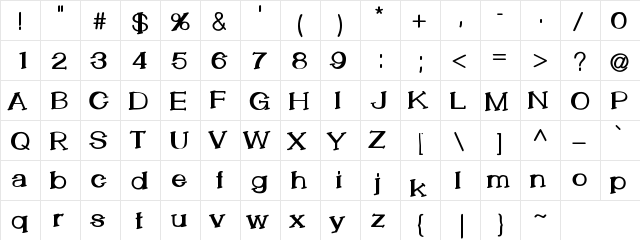
LemonCookieBold Bold
Design Context for LemonCookieBold Typeface
LemonCookieBold is a composed and adaptable typeface that performs quietly and consistently across a wide range of design contexts. Its bold stroke weight gives it real presence on the page.
Pro Tip: Use LemonCookieBold in both headline and body roles to test its range before committing to a single application.